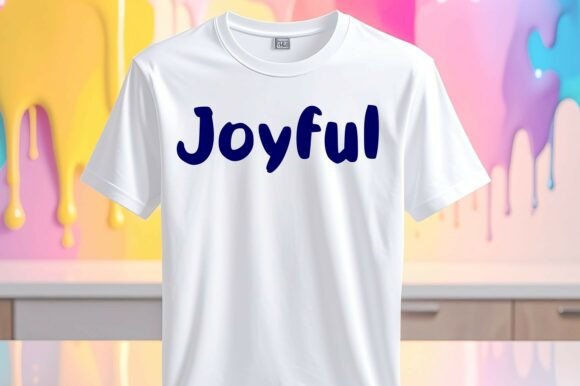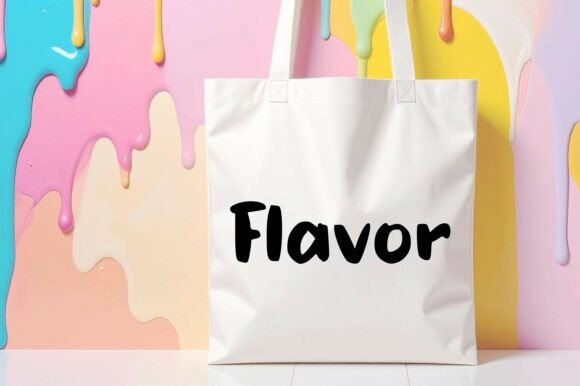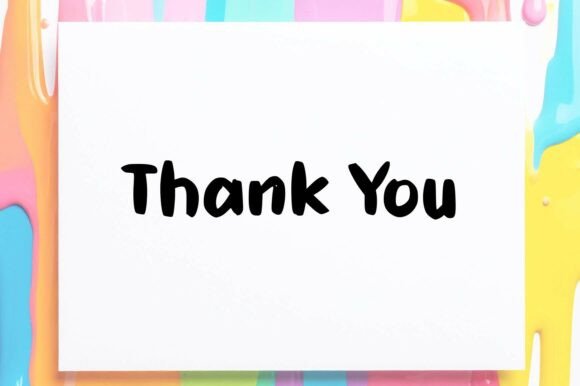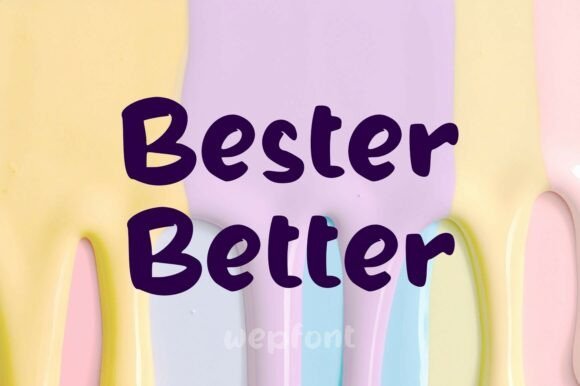
Discover the Unbridled Joy of Design with the Bester Better Font
Have you ever stumbled upon a font that instantly sparks creativity and transports you to a world of vibrant colors and whimsical charm? For designers, this moment is a treasure trove of inspiration, and it’s exactly what you’ll experience with the Bester Better Font. This delightful handwritten display font is a masterclass in capturing the essence of youthful authenticity, with its bold, rounded characters and slightly misaligned, hand-drawn style.
Whether you’re crafting a captivating children’s item, designing a charming candy store, or creating a lively public event, the Bester Better Font is the perfect companion. Its inclusive set of standard punctuation and seamless compatibility with major design platforms make it an invaluable asset for designers looking to add a touch of joy and whimsy to their projects.
Bester Better Font Key Features
- Unique Characteristics: The font features a unique blend of modern and traditional design elements, with intricate details and subtle nuances that set it apart from other sans-serif fonts.
Bester Better Font Review
Overall, I have mixed feelings about the Bester Better Font. While it has some great qualities, it also falls short in a few areas.
- The font is highly legible, making it perfect for body text and long-form content.
- The font’s subtle flair and elegance give it a touch of sophistication, making it suitable for luxury brands or high-end designs.
- The font’s scalability is impressive, maintaining its quality across various sizes and resolutions.
- The font’s limited character set makes it difficult to use for languages that require a wide range of special characters.
- The font’s bold and italic styles can feel a bit clunky, losing some of the elegance found in the regular style.
- The font’s lack of bold condensed and light condensed styles makes it less versatile for certain design applications.
Overall, I would give the Bester Better Font 3 out of 5 stars. While it excels in some areas, its limitations hold it back from being a truly exceptional font. It’s worth considering for projects where legibility and elegance are key, but it may not be the best choice for more complex designs or languages that require a wide range of characters.
Use Bester Better Font for creating eye-catching headlines, titles, and headings in your designs. It’s also suitable for use in logos, branding materials, and marketing campaigns. Experiment with different font sizes and colors to achieve the desired visual effect.
For best results, use Bester Better Font in combination with other design elements that complement its unique style. Experiment with different font sizes, colors, and styles to create a cohesive design.